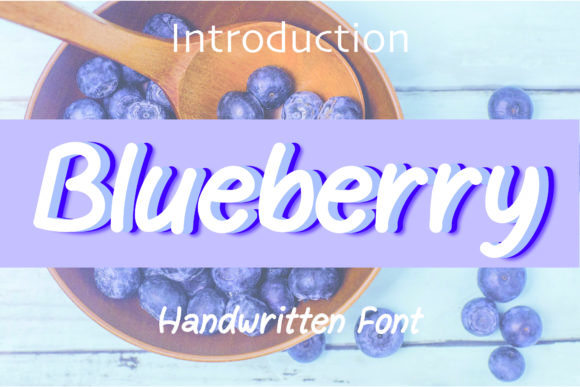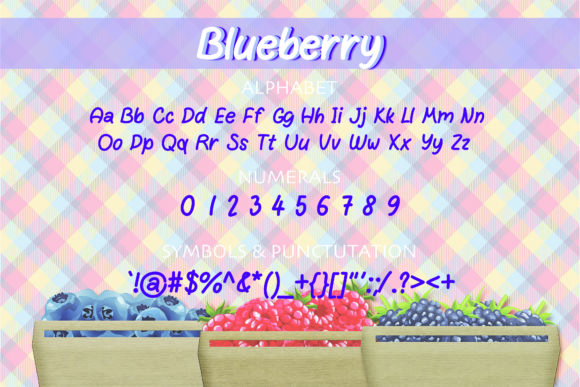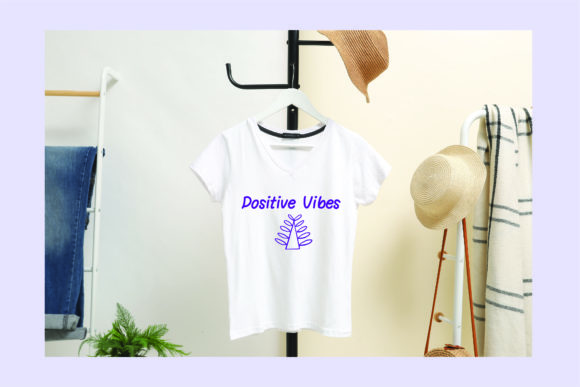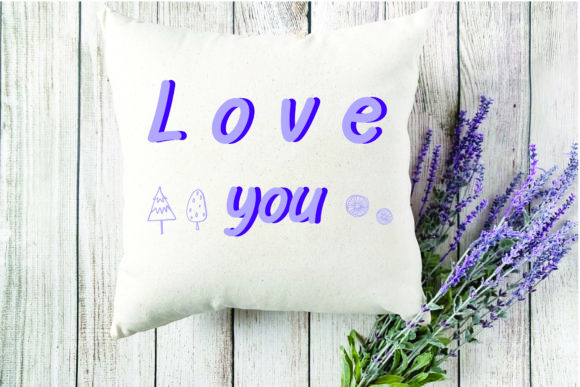
Blueberry Font
About Blueberry Font
Blueberry is a cute and flexible handwritten font. Its natural and unique style makes it incredibly fitting to a large pool of designs. Have fun with this beautiful font and explore its endless variations!